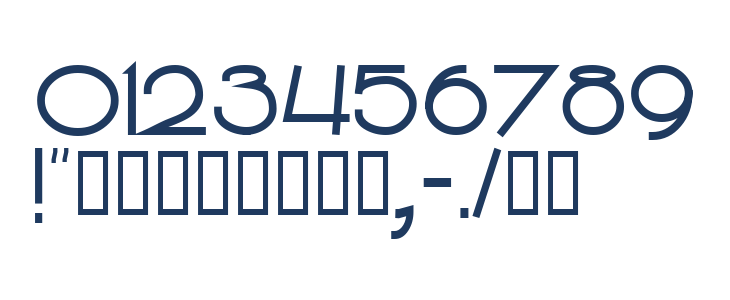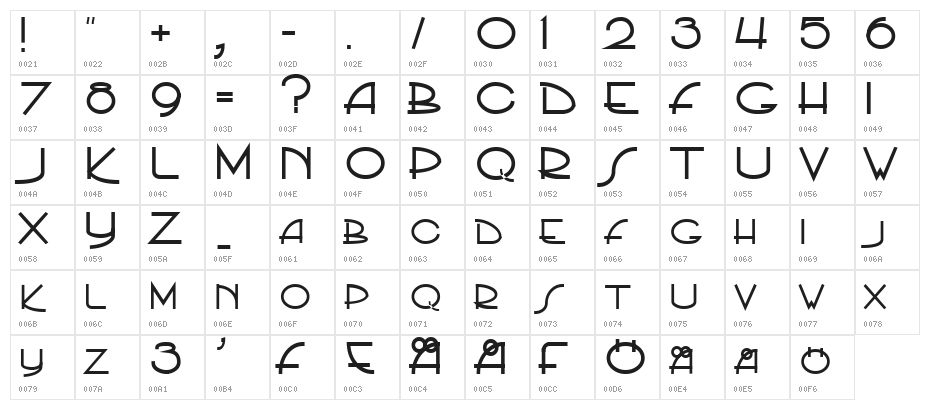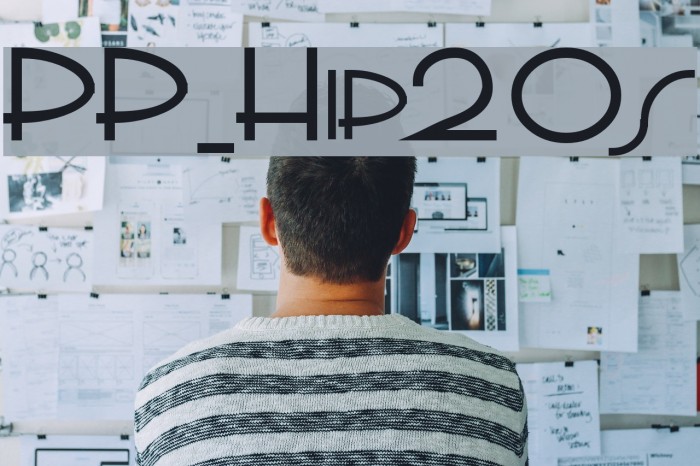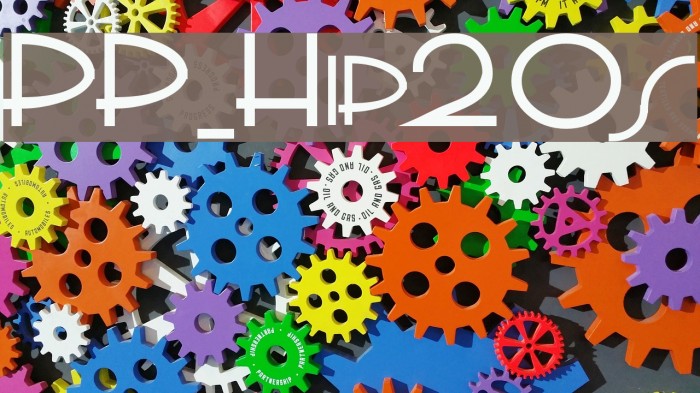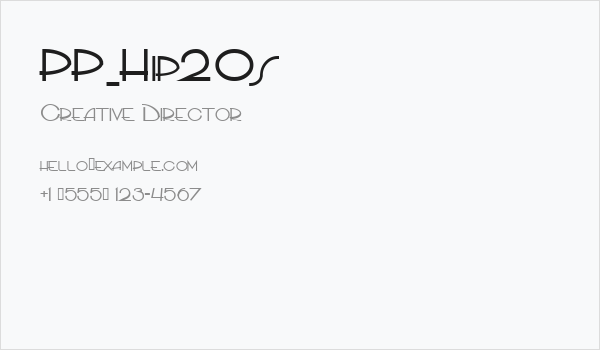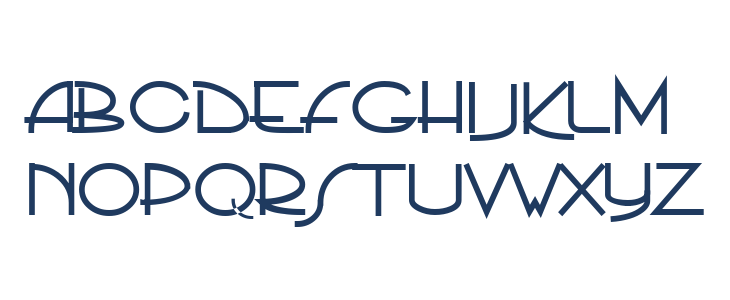
PP_Hip20s Font
PP_Hip20s Description
This font features a unique and modern design with a geometric and futuristic flair. The characters are crafted with clean lines and a distinct style that incorporates both rounded and angular elements. The uppercase letters have a bold presence, while the lowercase letters maintain a consistent and harmonious look. The numerals are designed with a similar aesthetic, ensuring a cohesive appearance across all characters. Special characters are included, adding versatility to the font's use. The overall design is sleek and contemporary, making it suitable for a variety of creative projects.